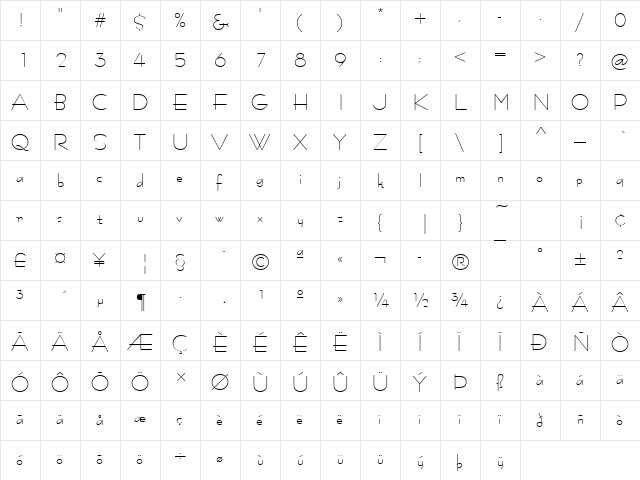
BernhardFasD Regular Font Preview
BernhardFasD Regular
BernhardFasD Regular Font Details
Design Context for BernhardFasD Typeface
BernhardFasD is a composed and adaptable typeface that performs quietly and consistently across a wide range of design contexts.